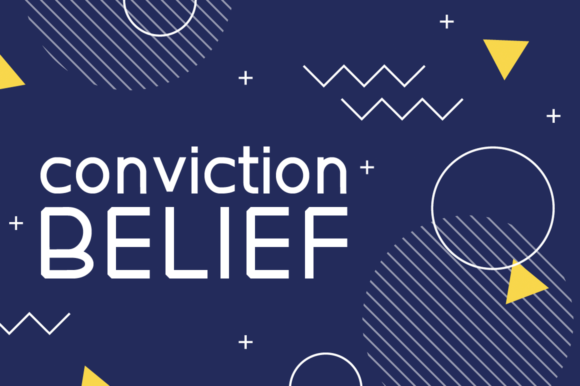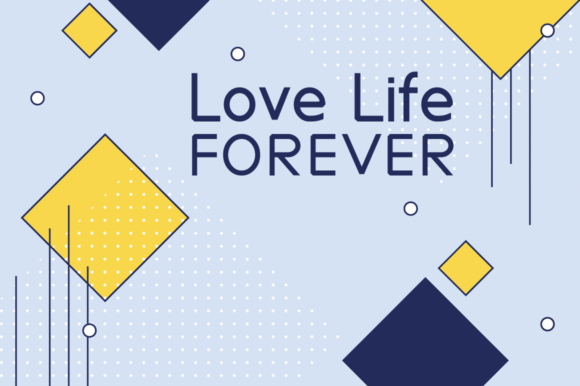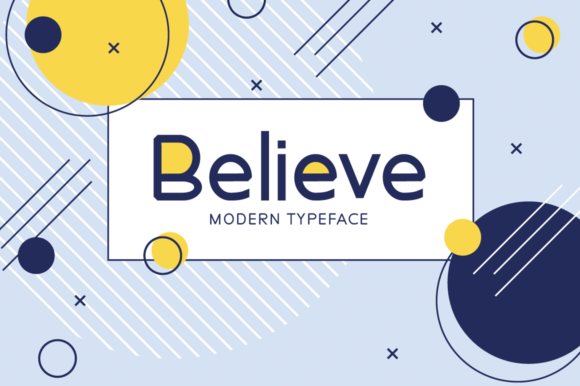
Discover the Charm of Believe Font: Elevate Your Designs with a Friendly and Casual Touch
In the world of typography, fonts play a crucial role in conveying the tone and personality of a design. For designers and crafters looking to add a touch of warmth and approachability to their creations, the Believe Font is an excellent choice. This cute and casual display font is designed to bring an incredibly friendly feel to your projects, making it perfect for those who aim to make their designs stand out with an original and outstanding appeal.
What Makes Believe Font Stand Out?
Believe Font is not just another addition to the vast sea of typefaces. Its unique charm lies in its ability to blend playfulness with elegance, making it versatile for a wide range of design applications. Whether you’re working on a branding project, crafting a unique invitation, or designing engaging social media content, Believe Font can add that extra layer of appeal that captures attention and fosters connection.
Key Features of Believe Font
- Cute and Casual Aesthetic: The font boasts a friendly and approachable look, making it ideal for designs that require a personal touch.
- Display Font: Designed specifically for display purposes, Believe Font shines when used in larger sizes, making it perfect for headlines, titles, and short phrases.
- Versatility: Its friendly feel doesn’t limit its use to just playful or whimsical projects. Believe Font can also bring a softer edge to more formal designs, offering a refreshing contrast.
- Ease of Use: Believe Font is easy to read and understand, ensuring your message is communicated clearly and effectively.
For designers and crafters, finding the right font can often be a daunting task. Believe Font simplifies this process by offering a typeface that is both unique and highly versatile. It can be used across various platforms and design materials, including:
- Digital Media: Enhance your website, blog, or social media graphics with a font that captures attention and invites engagement.
- Print Materials: From business cards to posters and flyers, Believe Font can add a distinctive touch to your print designs.
- Crafting Projects: Whether you’re creating handmade cards, scrapbooking pages, or DIY crafts, this font can add a personalized and professional look.
Tips for Using Believe Font Effectively
To make the most of Believe Font, consider the following tips:
- Pair with Complementary Fonts: Combine Believe Font with simpler fonts for body text to create visual hierarchy and balance.
- Experiment with Colors: While Believe Font looks great in bold colors, don’t hesitate to experiment with subtle shades for a softer look.
- Play with Sizes: Take advantage of the font’s display nature by varying sizes to emphasize certain parts of your design.
Believe Font offers a unique blend of friendliness and style that can elevate your designs to new heights. Its cute and casual aesthetic, coupled with its versatility, makes it an invaluable addition to any designer’s or crafter’s toolkit. By incorporating Believe Font into your projects, you’re not just choosing a typeface; you’re embracing a design philosophy that values approachability, originality, and connection. So, go ahead and let Believe Font be the voice that makes your designs heard and seen.